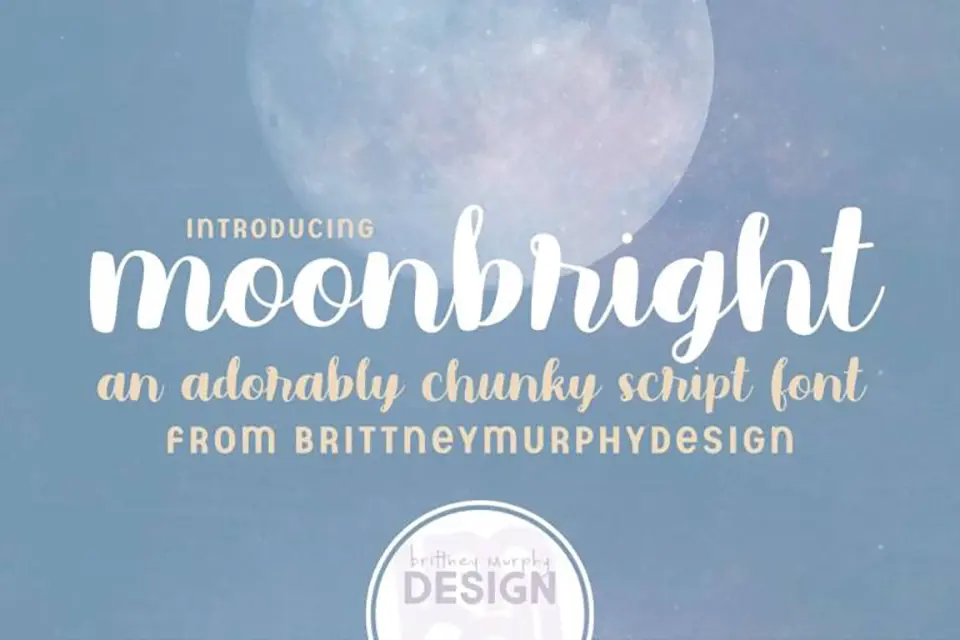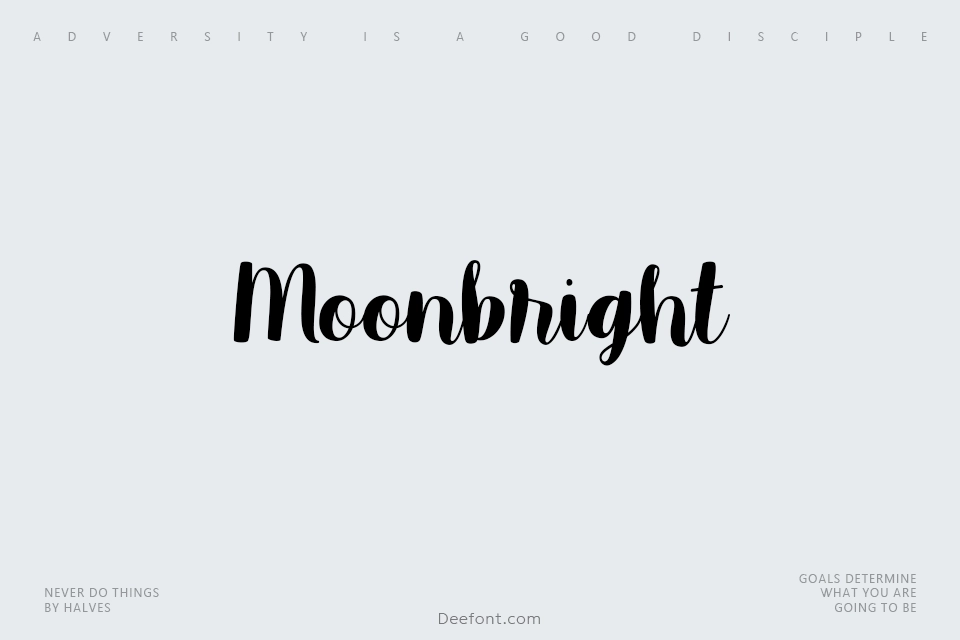
Moonbright Font
Moonbright is a cute and chunky script font designed by Brittney Murphy Design Design that combines bold letterforms with charming handwritten aesthetics. Perfect for headlines, decorative elements, and eye-catching designs, this versatile typeface includes comprehensive Latin-based language support with over 800 glyphs and features both standard and inline variations. Its playful yet professional appearance makes it ideal for creative projects, signage, and decorative typography work.